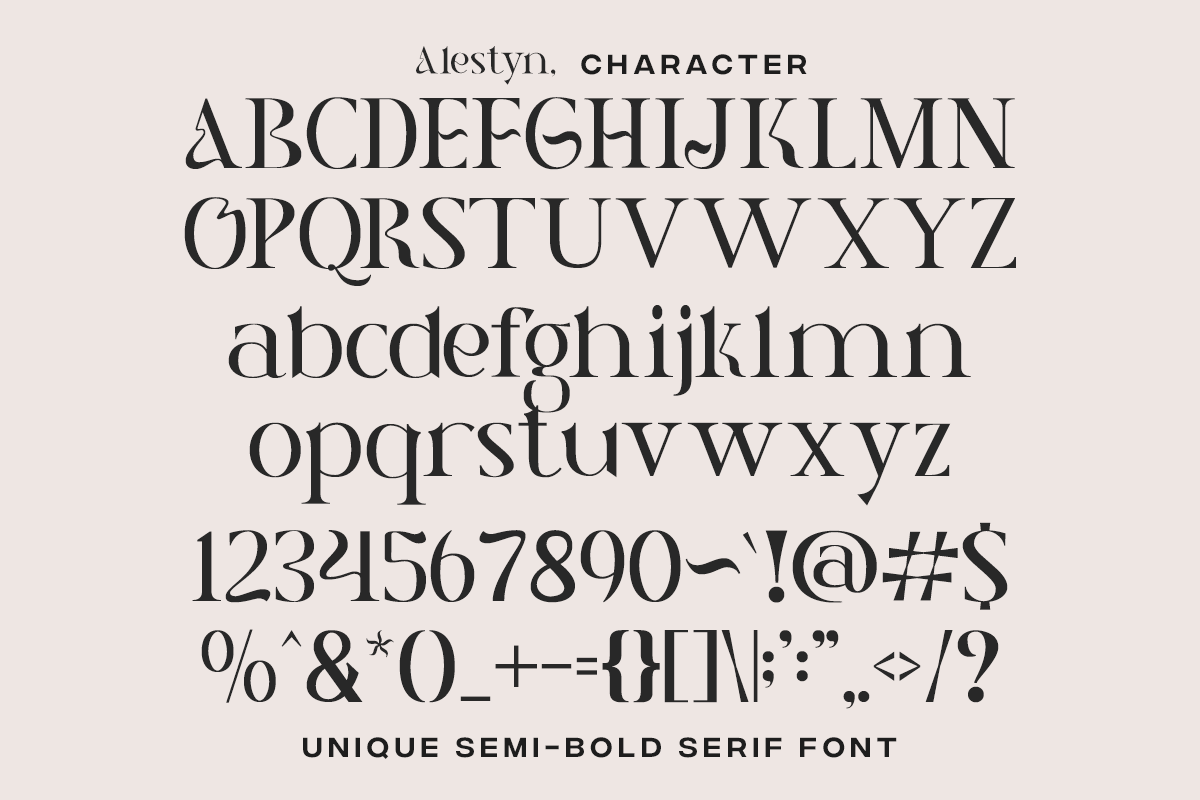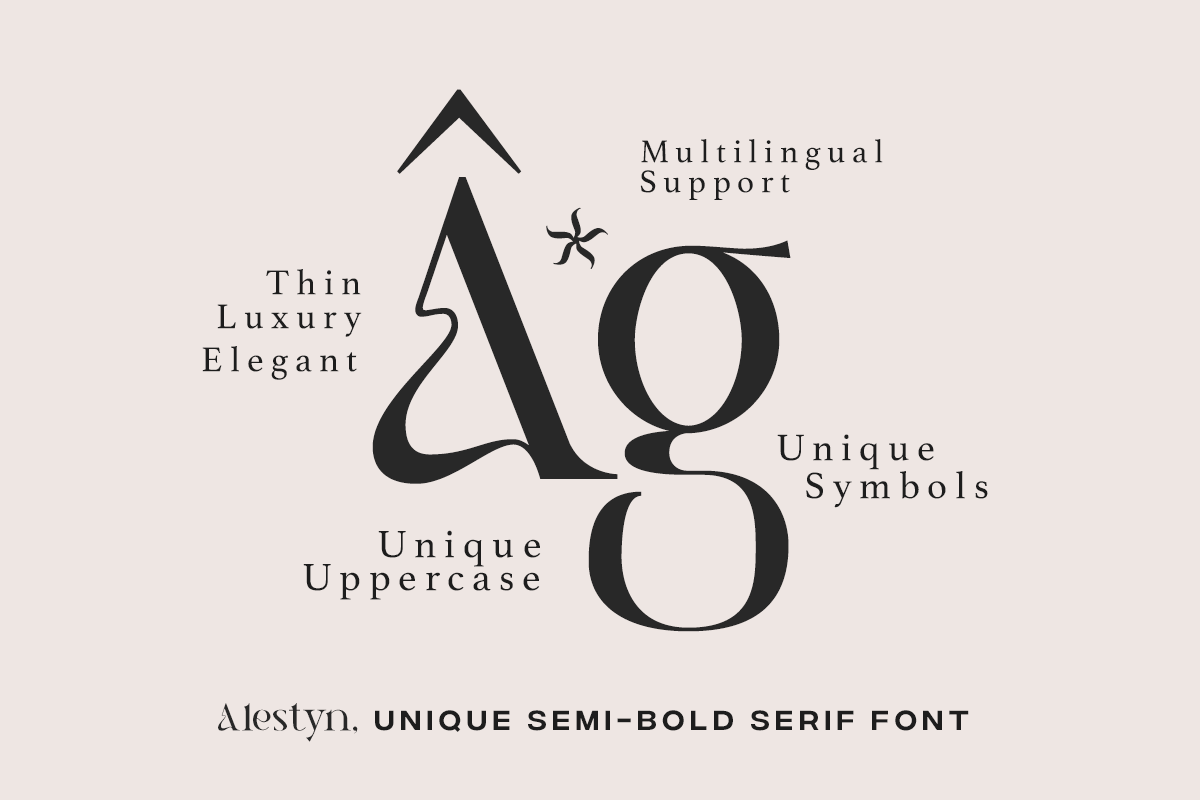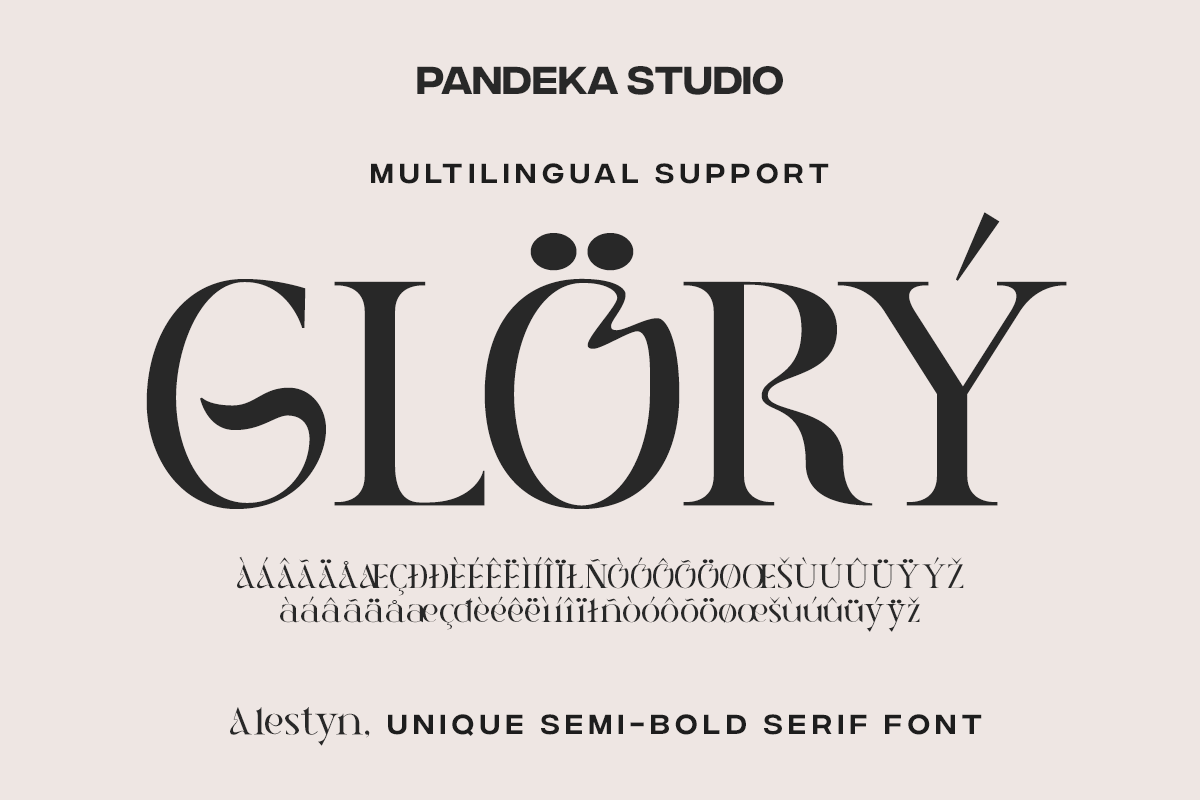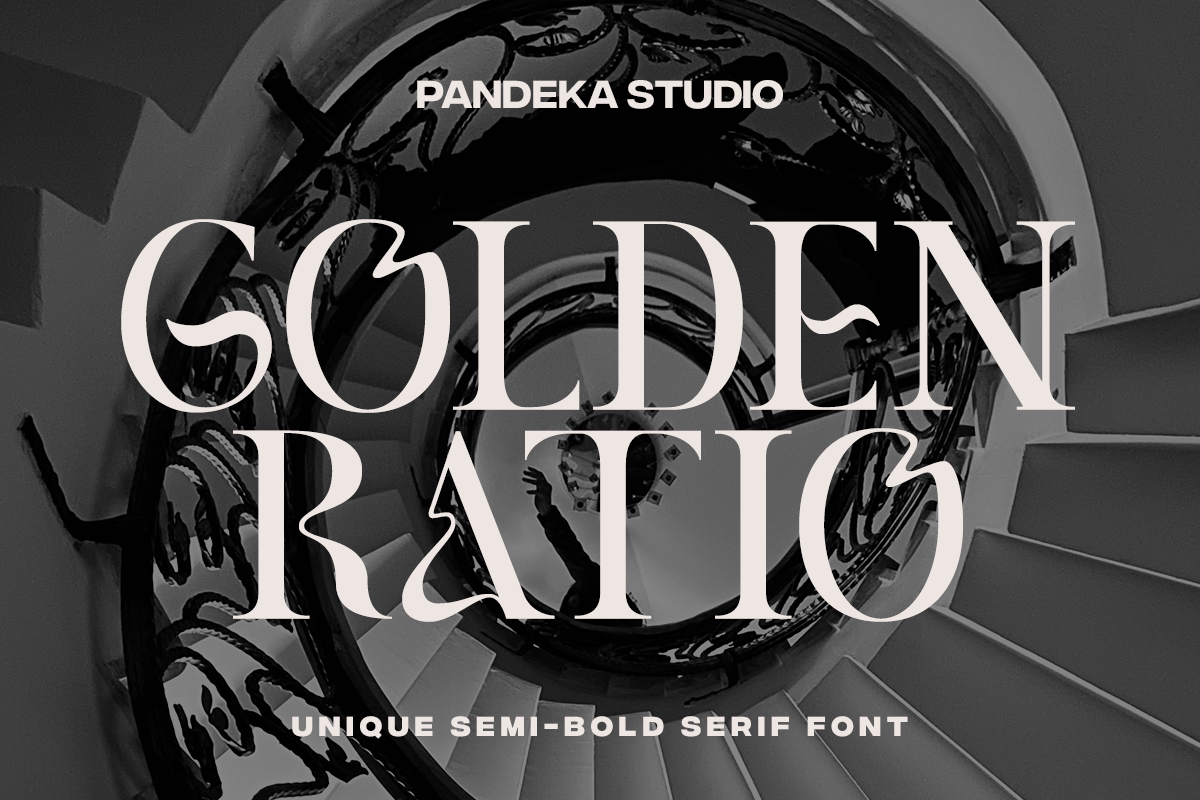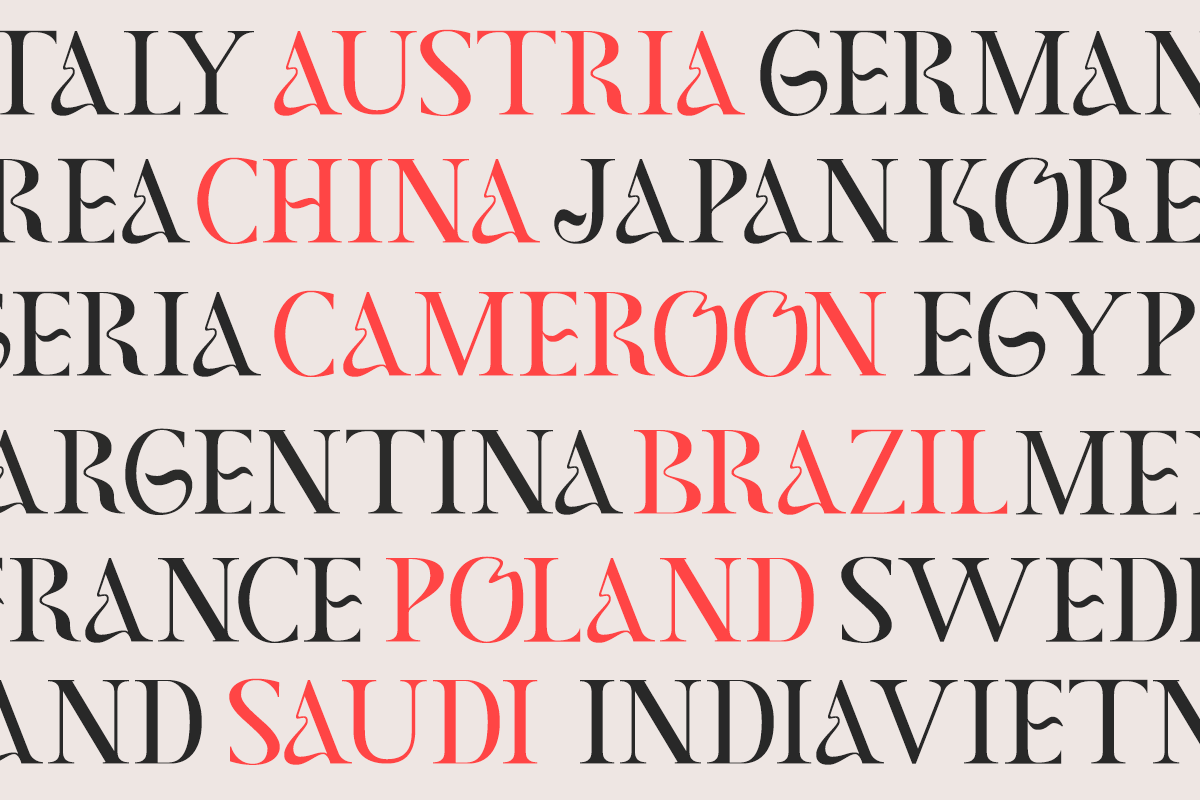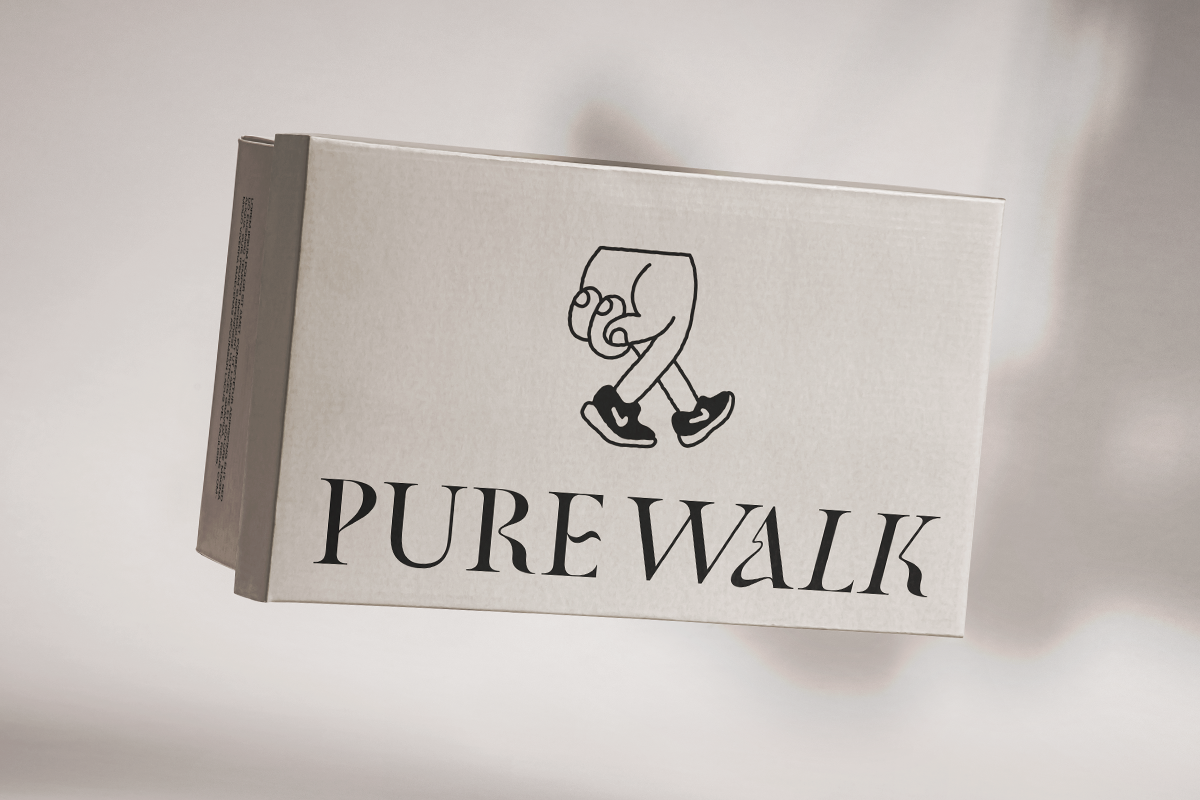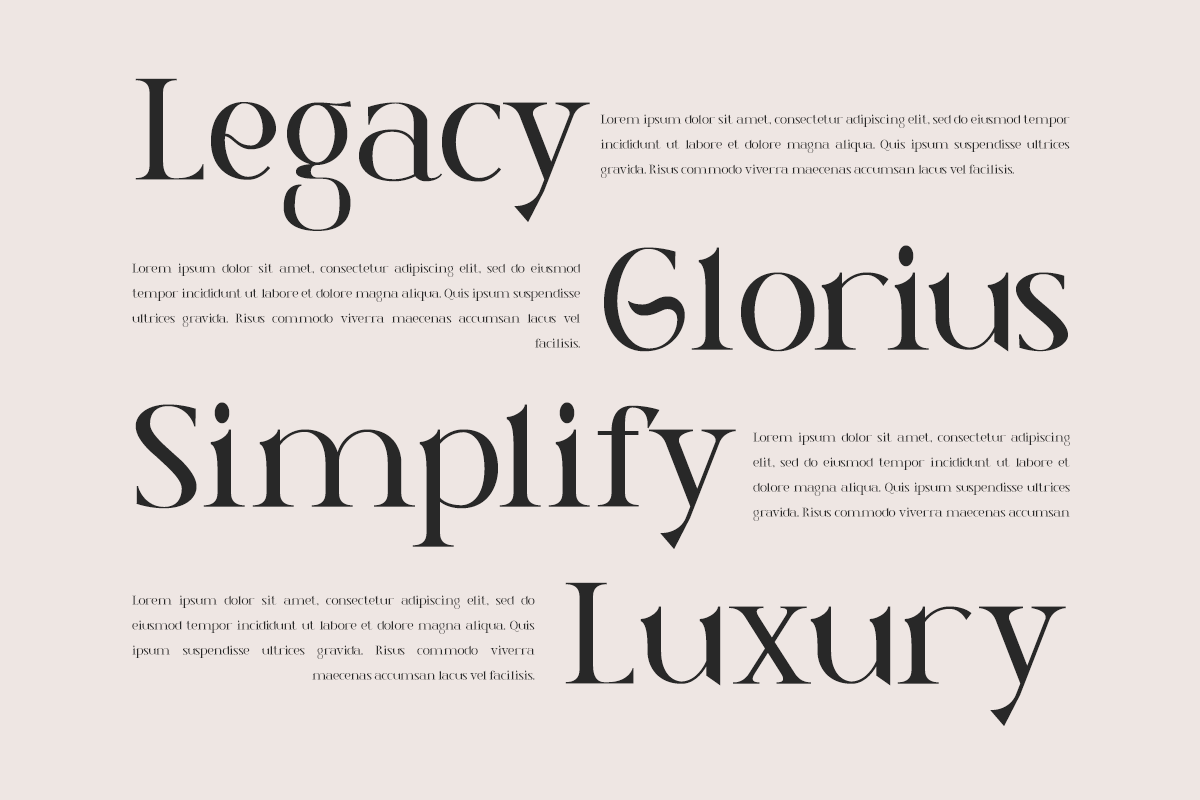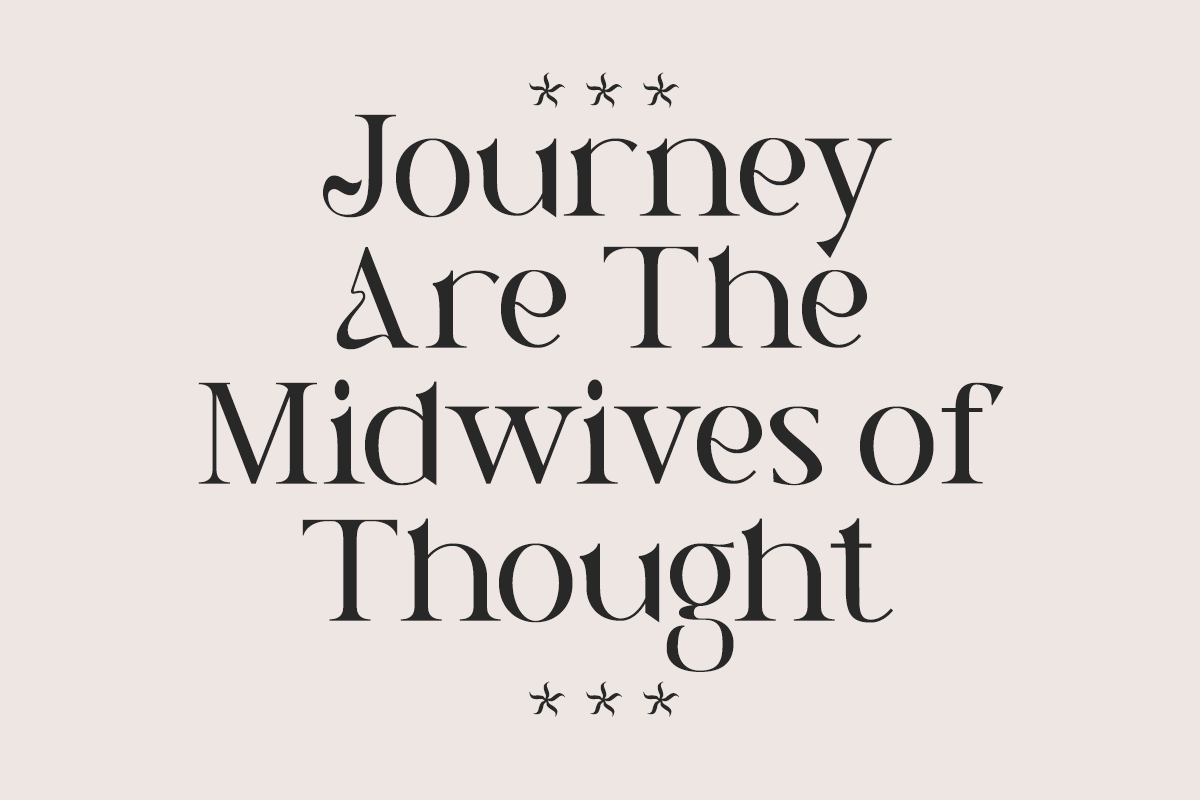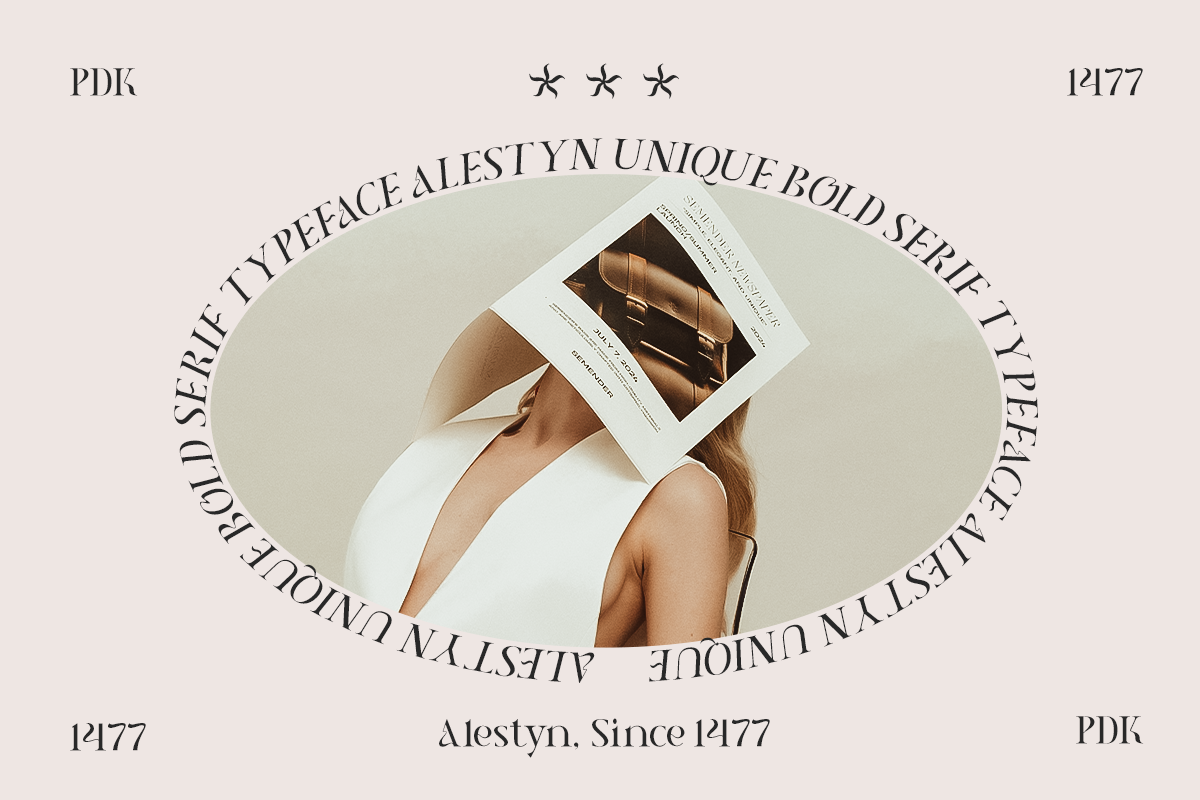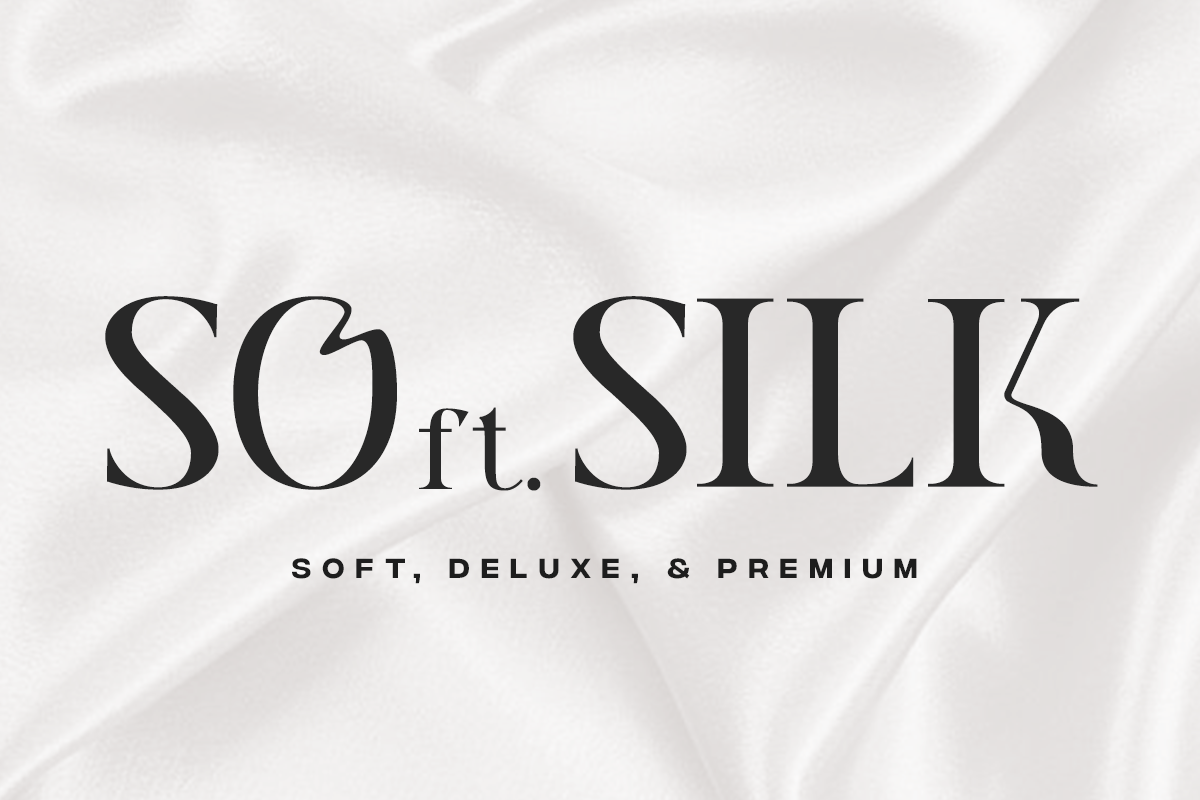
Alestyn - Aesthetic Modern Serif
Introducing Alestyn – a sophisticated serif typeface that effortlessly combines elegance with a contemporary flair. With its graceful lines and modern aesthetic.
Alestyn adds a touch of femininity and class to any design project, making it the ideal choice for those seeking both style and sophistication.
Perfect for greeting cards, packaging, brand identities, posters, and more, Alestyn ensures your designs stand out with an eye-catching and trendy appeal. Its versatile nature allows you to play and experiment, bringing a unique and polished look to all your creative endeavors.
- Uppercase & Lowercase Letters
- Unique letterforms
- Currencies